4 Typography Design Trends for Premium Branding in 2026
Stay ahead of the curve! Discover the top typography design trends in 2026 that will instantly elevate your client’s branding and increase your design value.
It’s 2026, and relying on outdated aesthetics is costing you high-paying clients. Knowing the latest typography design trends isn’t just about making things look pretty; it’s about proving your value as a top-tier designer and branding expert. Are you still using the same overused, free typefaces that every amateur is downloading? Your clients notice, and so do their competitors. They want fresh, modern, and legally safe branding that commands attention and justifies premium rates. In this post, we will explore the exact typographic shifts dominating the industry right now, helping you deliver high-converting designs without the copyright anxiety.
1. The “Warm” Geometric Sans Serif
For years, the tech industry was dominated by cold, ultra-minimalist geometric fonts. In 2026, we are seeing a massive pivot towards “warm” sans serifs. Brands still want that clean, scalable look for their UI/UX, but they are demanding softer curves and subtle humanistic touches to feel more approachable.
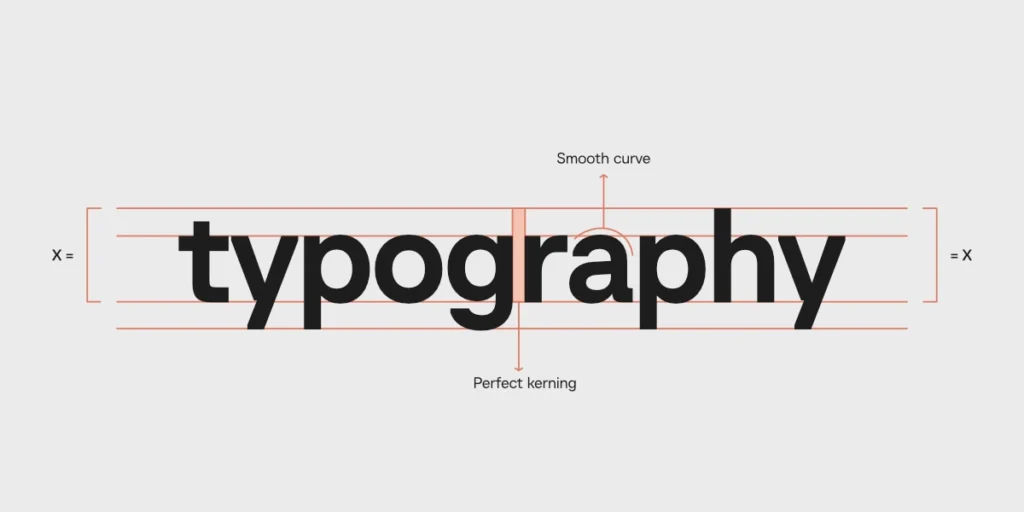
Fonts like our Baru Sans are perfectly engineered for this trend. It maintains structural perfection for digital screens while offering a friendly, modern vibe that instantly builds trust with consumers.
2. Nostalgic yet Modern Handwriting
Consumers are craving authenticity in a highly digital world. We are seeing major lifestyle, food, and organic skincare brands rejecting sterile corporate looks in favor of high-end, custom-feeling handwritten typography.
However, you can’t just use any messy script font. The trend dictates pairing a highly legible, premium handwriting font as an accent or sub-brand logo, balanced perfectly alongside a highly structured sans serif. This creates a luxurious contrast that feels both authentic and expensive.
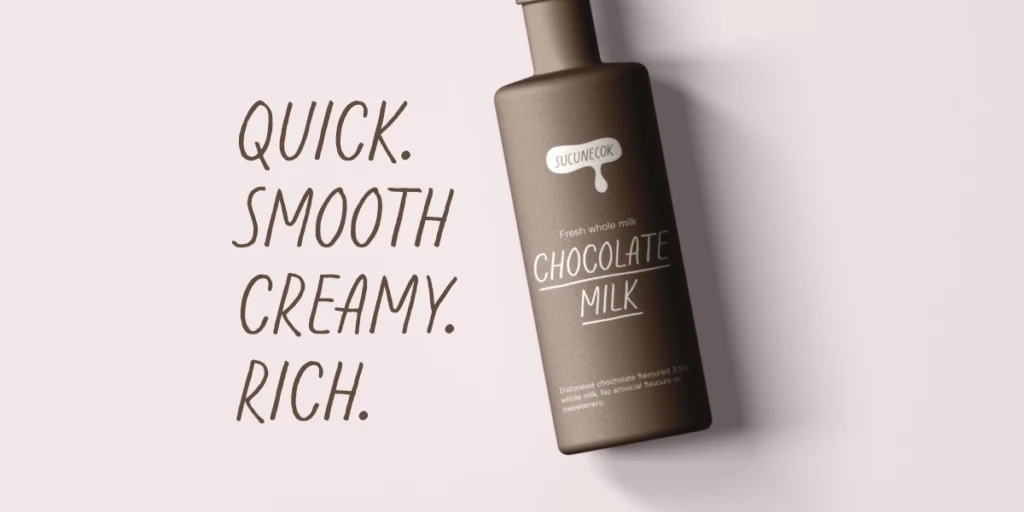
3. High-Contrast Precision
Another major trend making waves in high-end fashion, editorial, and boutique branding is the return of high-contrast typefaces. These are fonts featuring dramatic differences between thick and thin strokes.
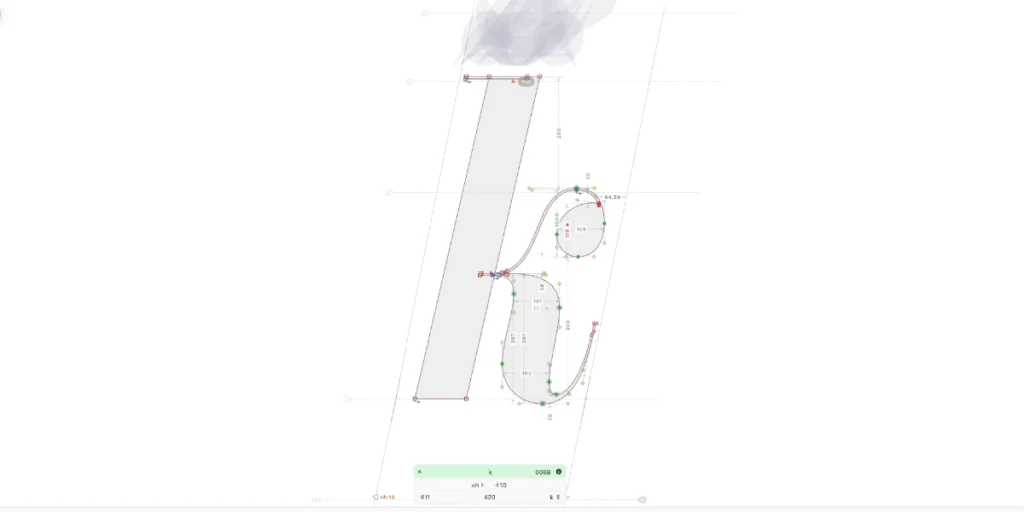
With over 4 years in the typography industry, I can tell you that high-contrast fonts are incredibly difficult to make well. If the vectors aren’t perfect, the thin lines disappear on screens. At Kereatype, we spend months obsessing over every node in FontLab 8 to ensure our high-contrast letters render flawlessly, maintaining absolute precision whether printed on a business card or rendered on a 4K display.
4. Ultra-Wide and Extended Formats
Brands want to take up space. Extended and ultra-wide fonts are being used heavily for headers, web banners, and bold merchandise. They convey confidence and stability.
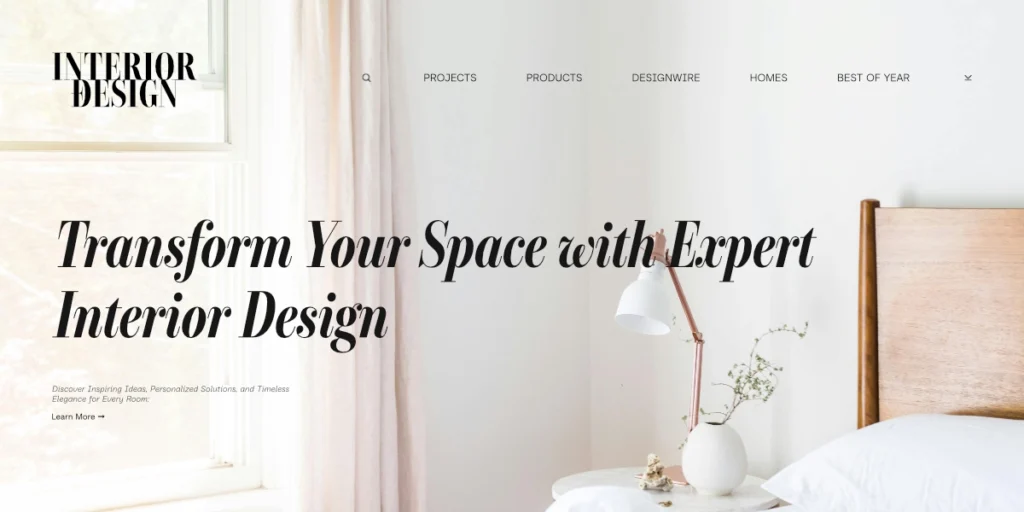
When using extended fonts, the secret is generous letter-spacing (tracking). Giving these wide letters room to breathe emphasizes their horizontal movement and creates a highly cinematic, premium feel for modern web design and e-commerce platforms.